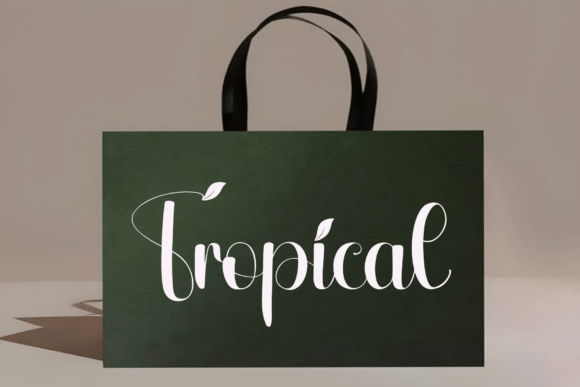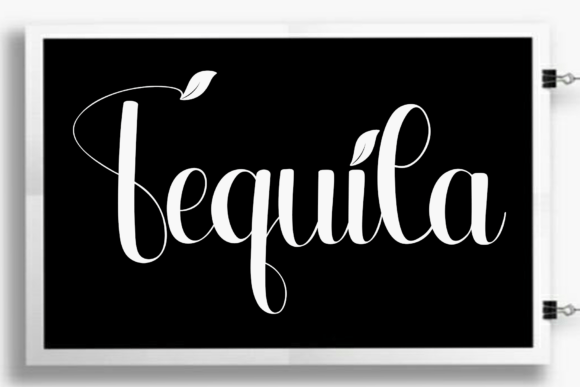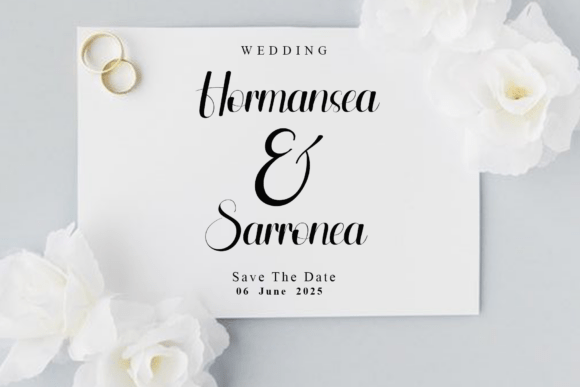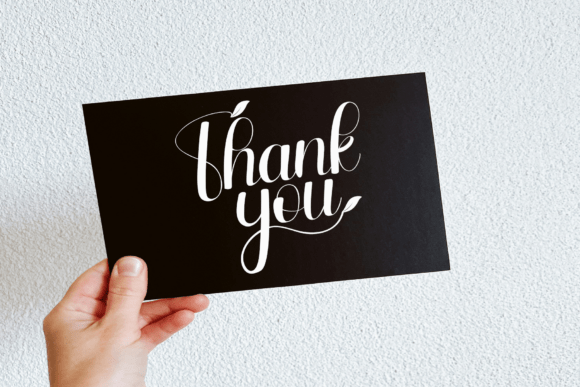
Garden Font: Elevate Your Designs with Timeless Elegance
In the world of typography, a well-crafted font can make all the difference in transforming a design from ordinary to extraordinary. For designers and crafters seeking to infuse their projects with a touch of sophistication and classic charm, the Garden Font is an exceptional choice. This trendy handwritten font boasts a contemporary atmosphere while drawing inspiration from timeless classic calligraphy, making it an ideal addition to any design endeavor.
The Essence of Garden Font
Garden Font is characterized by its impeccable form and elegant strokes, which evoke the feeling of traditional calligraphy. The font’s design is carefully crafted to provide a sense of fluidity and movement, reminiscent of handwritten scripts. However, what sets Garden Font apart is its modern twist, making it highly versatile and suitable for a wide range of design applications.
Key Features of Garden Font
• Trendy and Contemporary: Despite being inspired by classic calligraphy, Garden Font has a distinctly modern feel. Its clean lines and subtle curves make it perfect for designs that require a fresh and current look.
• Elegant and Classy: The font’s elegant strokes and impeccable form ensure that it adds a touch of sophistication to any design. Whether you’re working on a luxury brand project, an invitation, or a high-end product packaging, Garden Font is sure to impress.
• Versatile: Garden Font is highly versatile and can be used across various design projects. From digital content such as websites and social media graphics to print materials like brochures, posters, and business cards, this font adapts seamlessly.
• Handwritten Feel: The font’s handwritten nature gives it a personal and approachable feel, making it ideal for designs that aim to connect with the audience on a more intimate level.
Applications of Garden Font
The versatility of Garden Font makes it suitable for a myriad of design projects. Here are some of the areas where this font truly shines:
• Branding and Logotypes: For brands looking to establish a sophisticated and elegant image, Garden Font can be a valuable asset. Its unique yet refined appearance can help create memorable logotypes and brand identities.
• Invitations and Event Materials: The font’s classic charm makes it perfect for wedding invitations, event posters, and other ceremonial materials. It adds a touch of grace and luxury, setting the tone for the event.
• Packaging Design: For high-end products, especially in the beauty, fashion, and gourmet food sectors, Garden Font can enhance the packaging design with its elegant and classy appeal.
• Digital Content: Websites, blogs, and social media graphics can also benefit from Garden Font. It can be used to create headings, titles, and quotes that stand out and add a touch of elegance to the content.
Tips for Using Garden Font Effectively
To maximize the impact of Garden Font in your designs, consider the following tips:
• Pair with Complementary Fonts: While Garden Font is elegant on its own, pairing it with a simpler, sans-serif font can create a beautiful contrast and enhance readability.
• Adjust Letter Spacing: For headings and titles, slightly adjusting the letter spacing can make the text more visually appealing and emphasize the font’s unique characteristics.
• Use it for Headers and Highlights: Given its elegant and eye-catching nature, Garden Font works best when used for headers, titles, and highlights within your design.
Font Name Garden Font
Author pinkmeca
Garden Font is a versatile and elegant typeface that can elevate any design project with its timeless charm and contemporary appeal. Whether you’re a designer looking to add sophistication to a client’s brand or a crafter aiming to create beautiful, eye-catching materials, Garden Font is an excellent choice. Its ability to convey elegance and class makes it a valuable addition to any design toolkit.
Embrace the beauty of Garden Font in your next project and experience how a simple typography choice can make a significant impact on your design’s overall aesthetic and effectiveness.